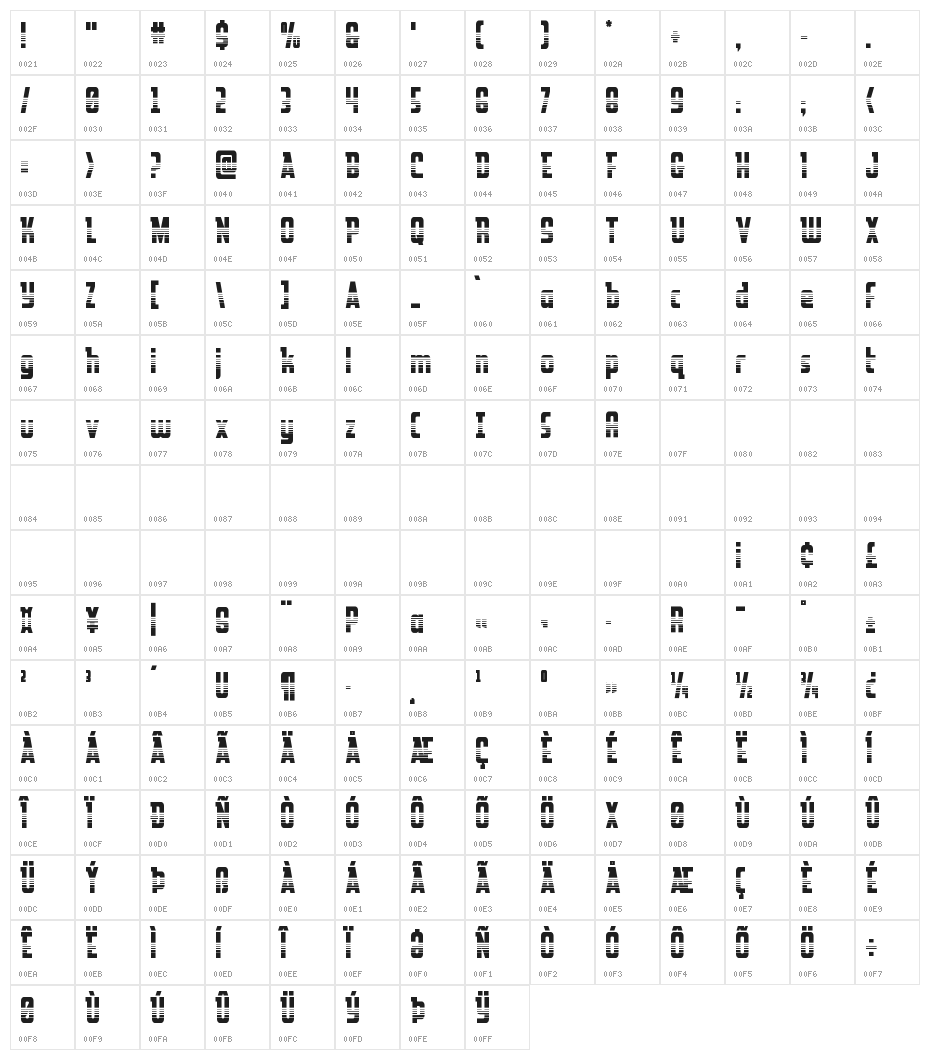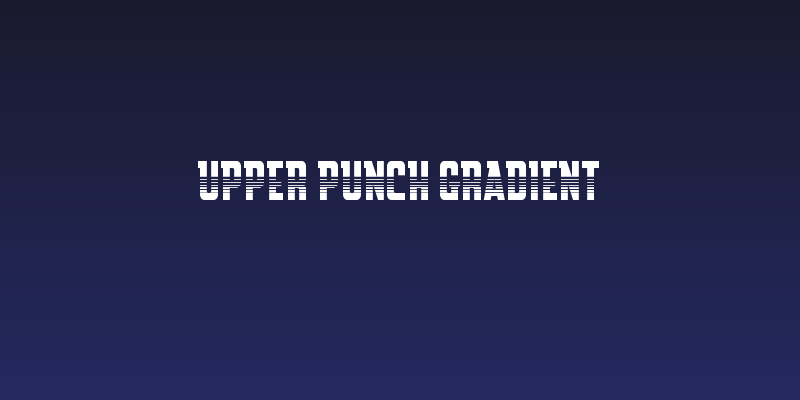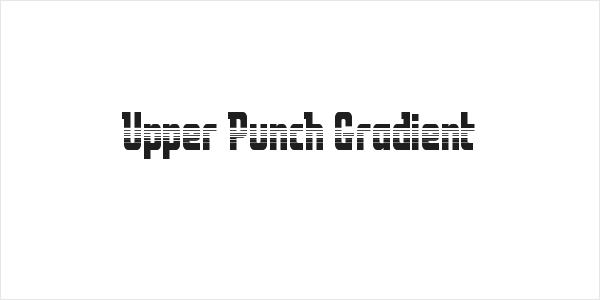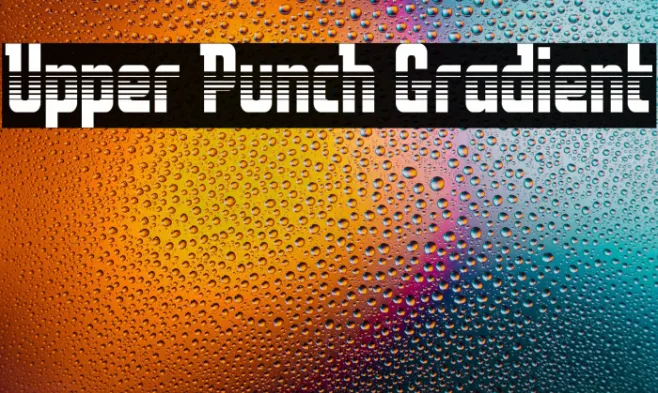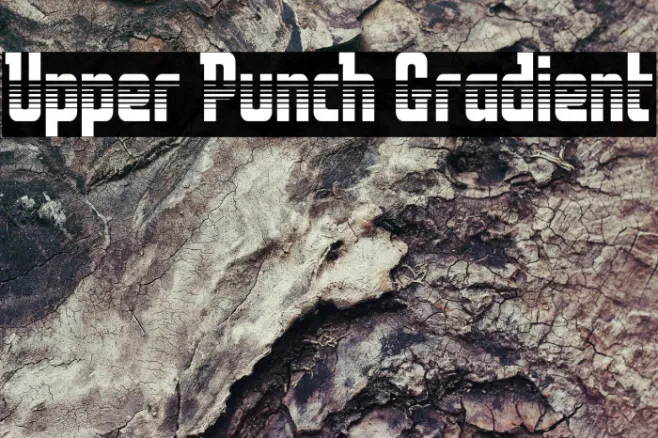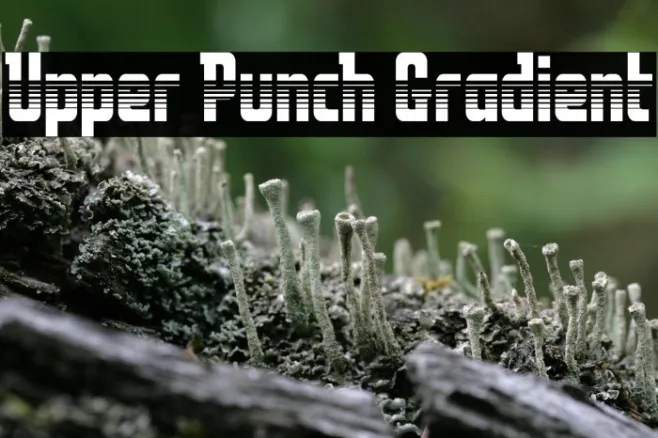
Upper Punch Gradient Font
Upper Punch Gradient Description
This font features a bold, striking design with a unique gradient effect that creates a sense of depth and movement. The uppercase and lowercase letters, as well as numbers and special characters, are designed with horizontal lines that vary in thickness, giving the impression of a punchy, dynamic style. The font's strong geometric shapes and high contrast make it stand out, while the gradient lines add a modern twist. It's ideal for projects that require a bold statement, combining traditional block lettering with a contemporary edge.
| Proposed Projects | Ideal for posters, headlines, branding, and any design needing a bold, modern statement. |